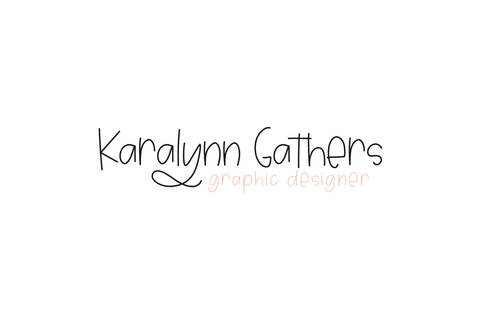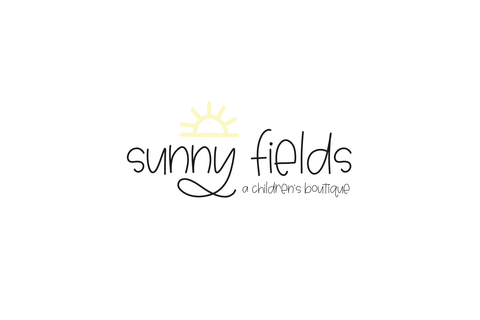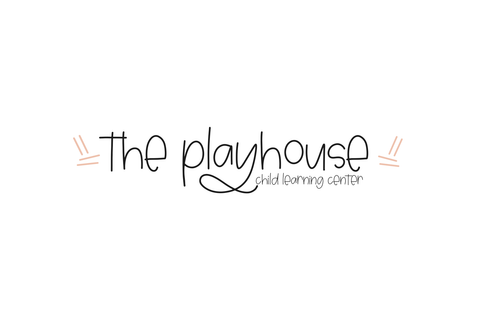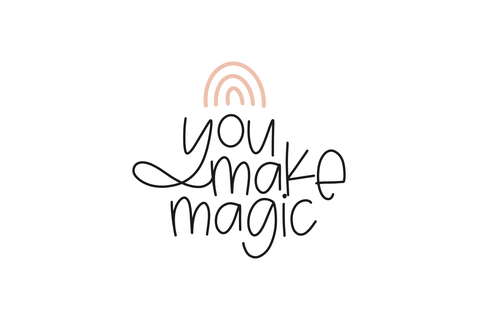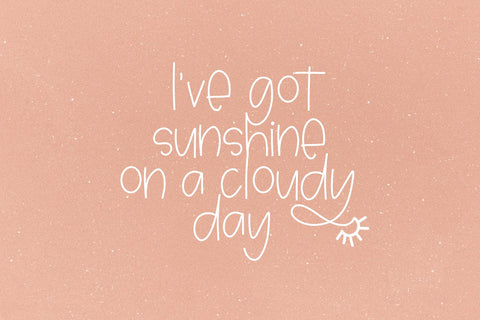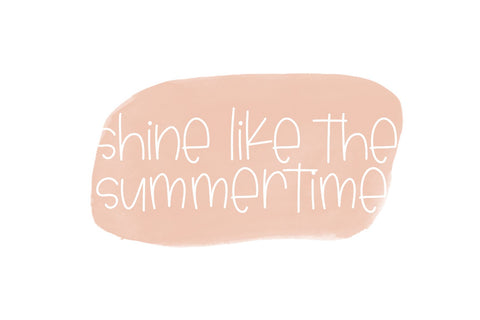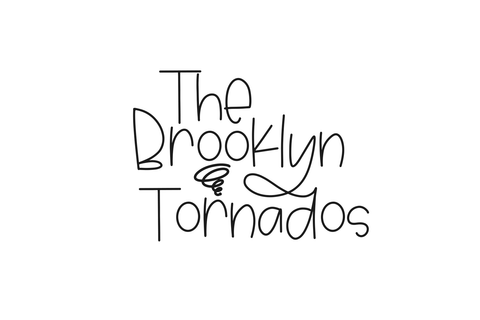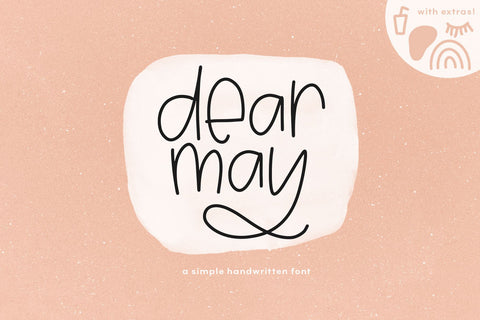
Dear May - Fun Font with Doodles!
Dear May is a quirky handwritten font.
It is printed and easy to read - with a fun twist!
This font is perfect for branding, quotes, kid's designs, blogs, logos, and more!
Most accent characters are included.